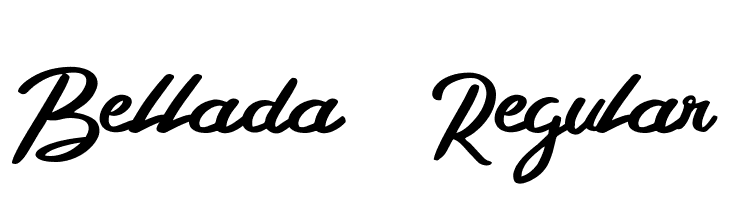
An elegant script font with flowing, cursive style and intricate loops.
A bold, playful font with a hand-drawn, brush-like style.
A bold, playful handwritten font with flowing, energetic letterforms.
A playful and elegant script font with a hand-drawn appearance.
A modern, cursive font with interconnected, flowing letters.
A bold, modern script font with elegant curves and smooth connections.
A bold, playful handwritten font with rounded, casual letterforms.
( Bellada Font )
A modern cursive font with interconnected, flowing letters and a dynamic style.
An elegant and sophisticated script font with intricate swirls and flowing curves.